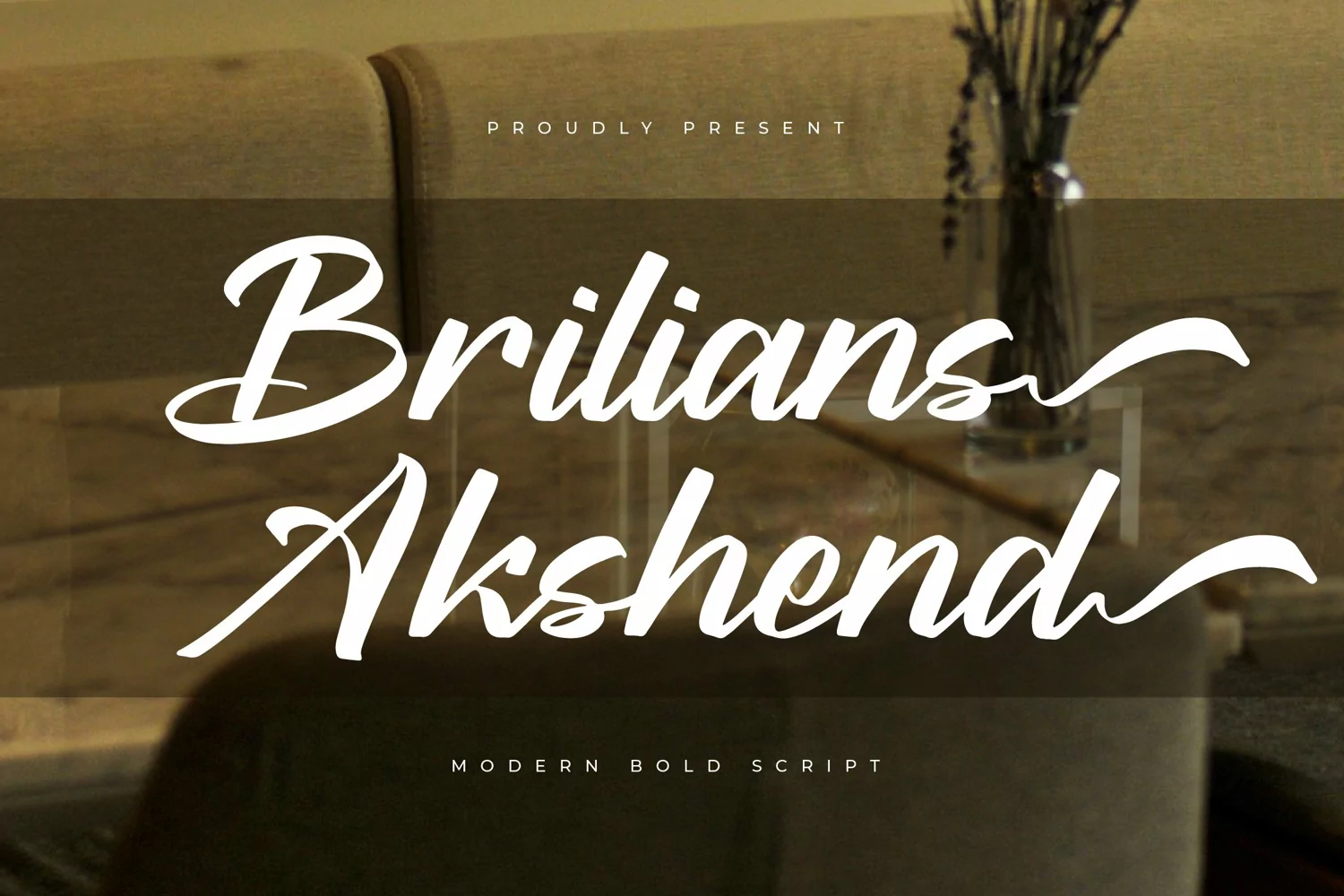
Brilians Akshend Modern Bold Script
Brilians Akshend
Brilians Akshend Italic
Brilians Akshend - Modern Bold Script , from Letterena, is a Luxury Script font, suitable for any projects such as: logos, branding projects, homeware designs, product packaging, mugs, quotes, posters, shopping bags, t-shirts, book covers, name card, invitation cards, greeting cards, label, photography, watermark, special events, and all your other luxury and beautiful projects that need a Luxury Script taste.
Ligature, Alternate & Swashes